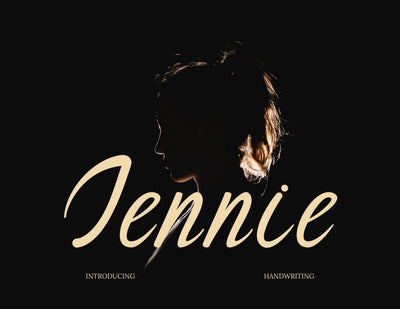
Jennie Modern Handwritten Font
Jennie perfect for greeting cards, magazine, branding, social media, print, packaging, and many more.
Jennie have an alternate character from a-z, this font is very easy and simple for purposes of your design project. Buffalo have two sets of lowercase letters, uppercase letters, punctuation, numbers.